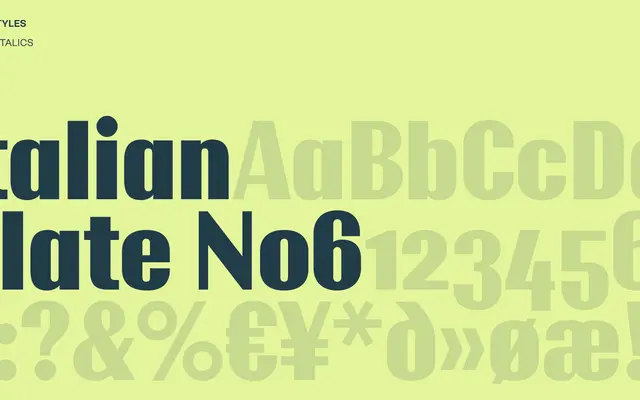
Italian Plate No6
A grotesque drawn from the Italian plate-lettering and sign-painting tradition, evoking mid-century European industrial vernacular.
Part of Playtype's Italian Plate series, this typeface references the functional lettering found on vehicle registration plates and industrial signage across 20th-century Europe. The family name signals a deliberate engagement with utilitarian type culture, where legibility and economy of form were the primary concerns. Suited to editorial and identity work that wants a grounded, period-inflected grotesque without overt nostalgia.
The name and visual vernacular of Italian Plate typefaces suggest a sign-painting and plate-lettering grotesque tradition, characteristic of industrial and vehicular lettering from mid-20th century Europe.